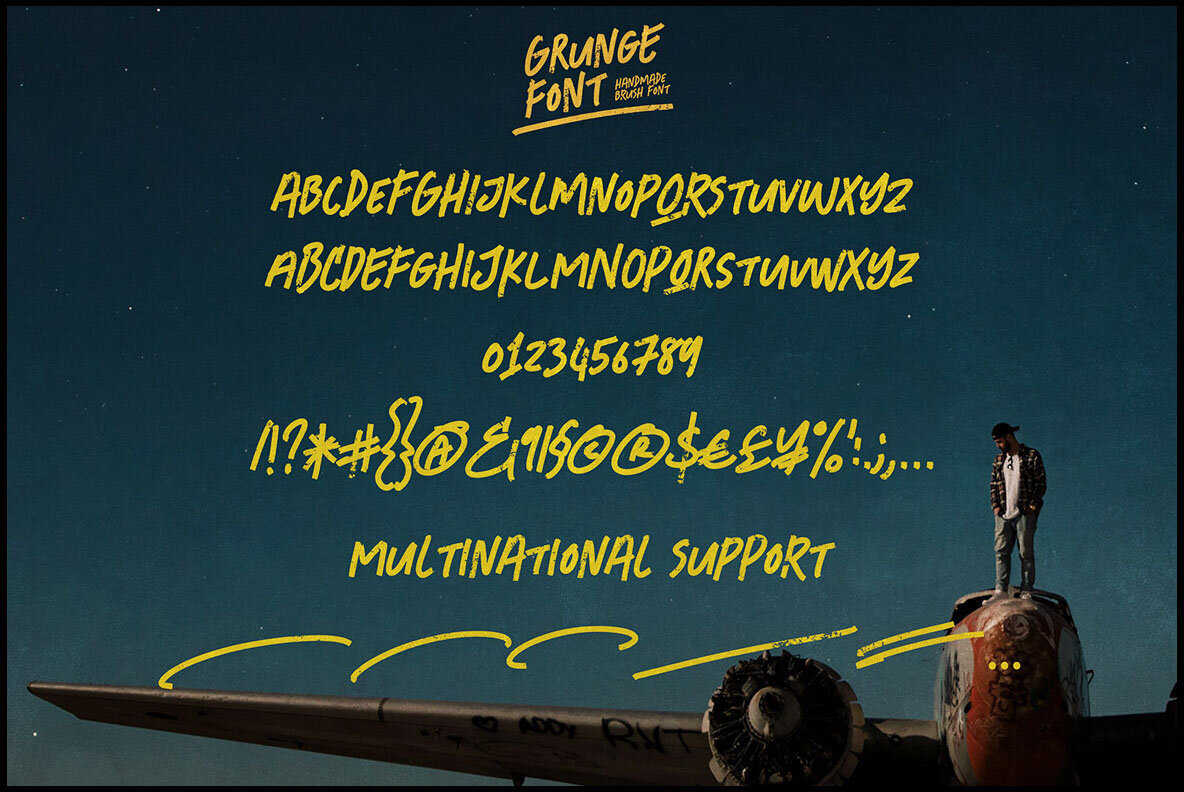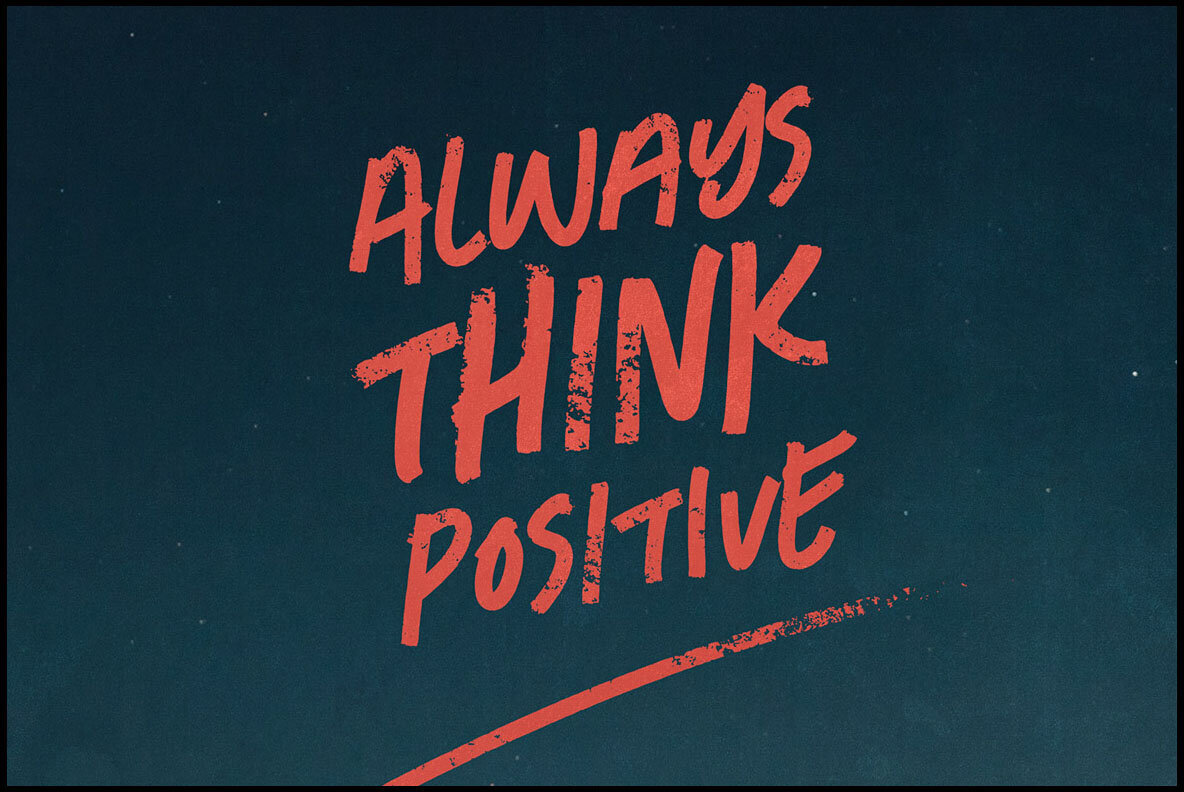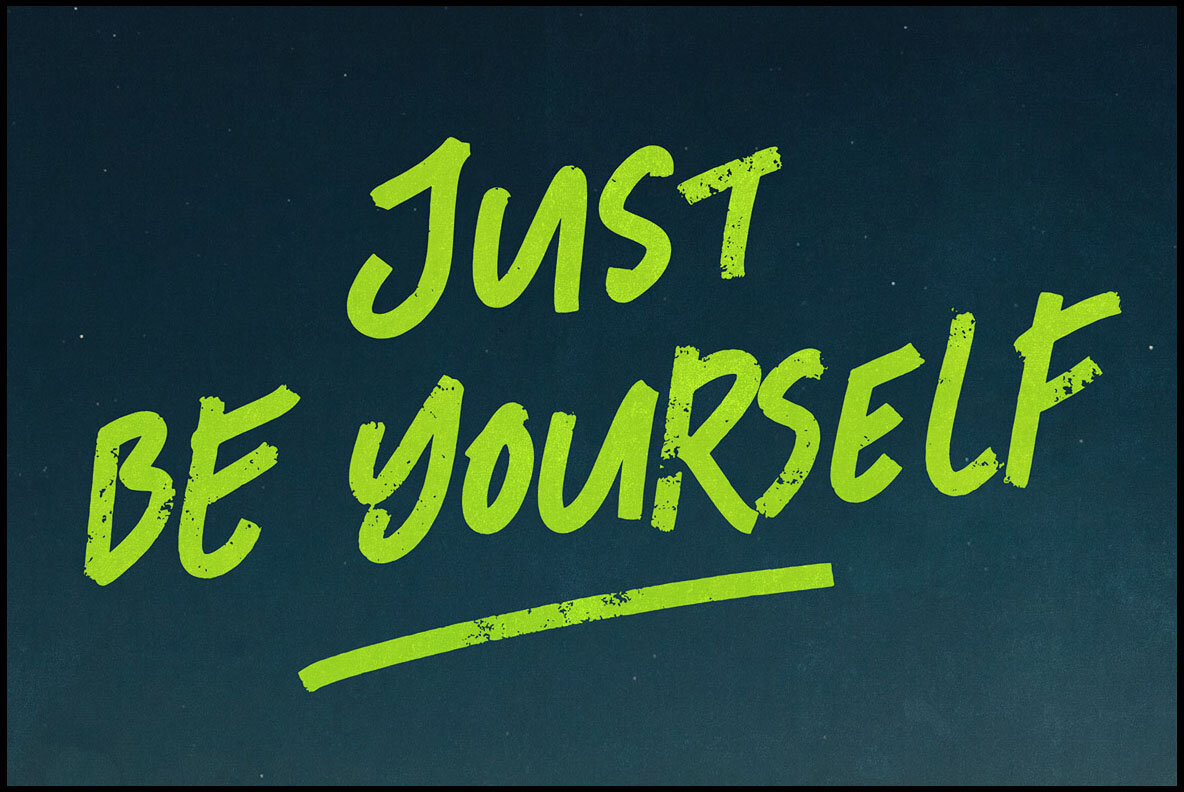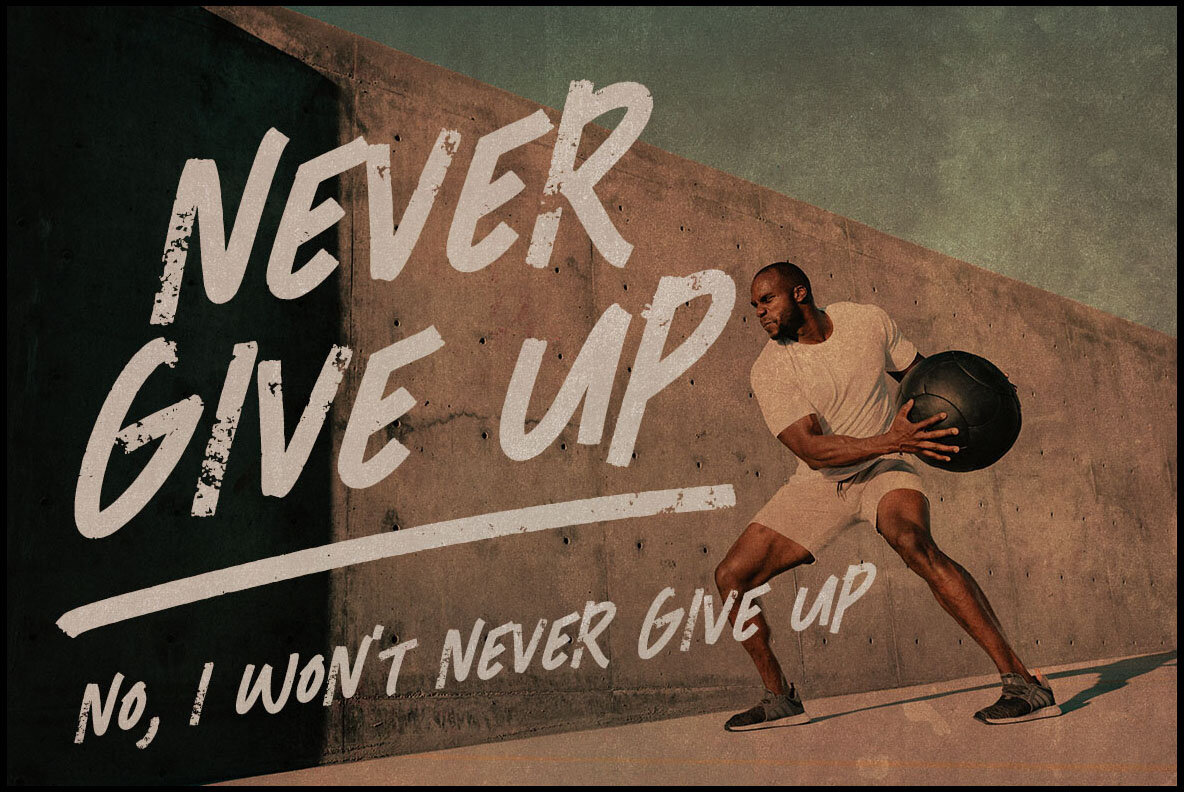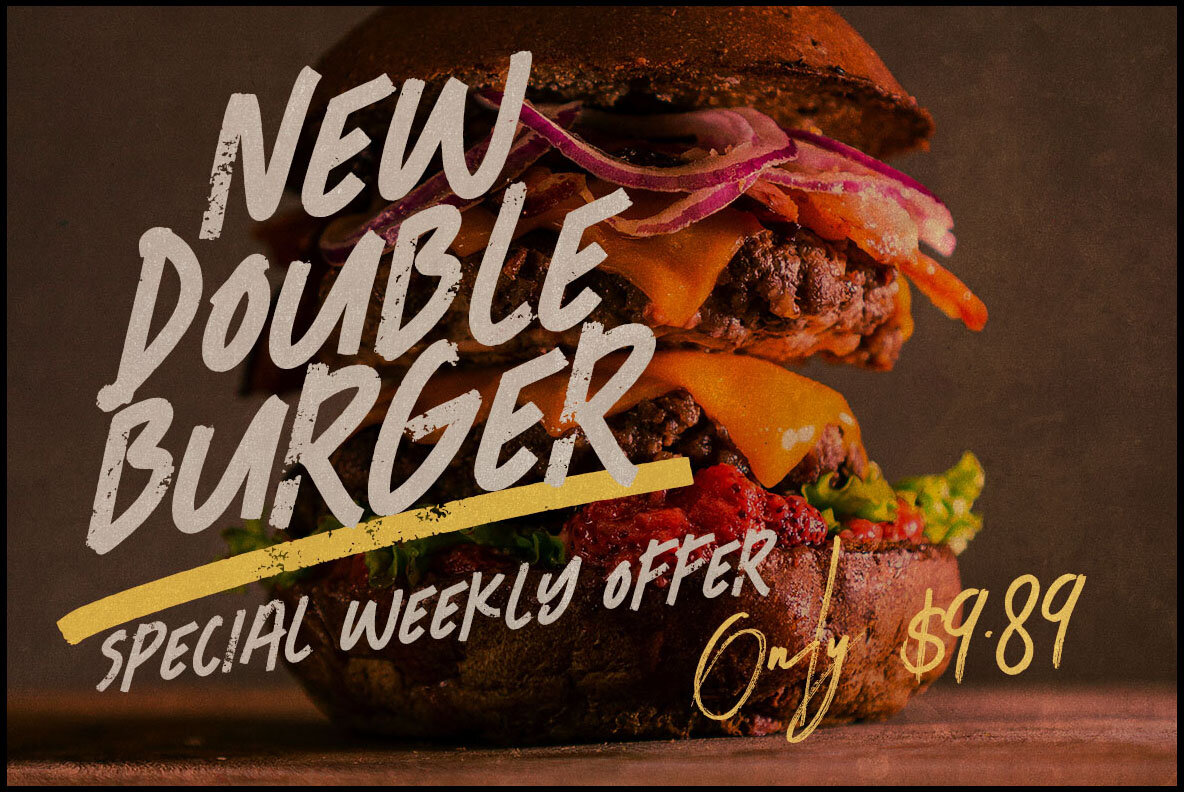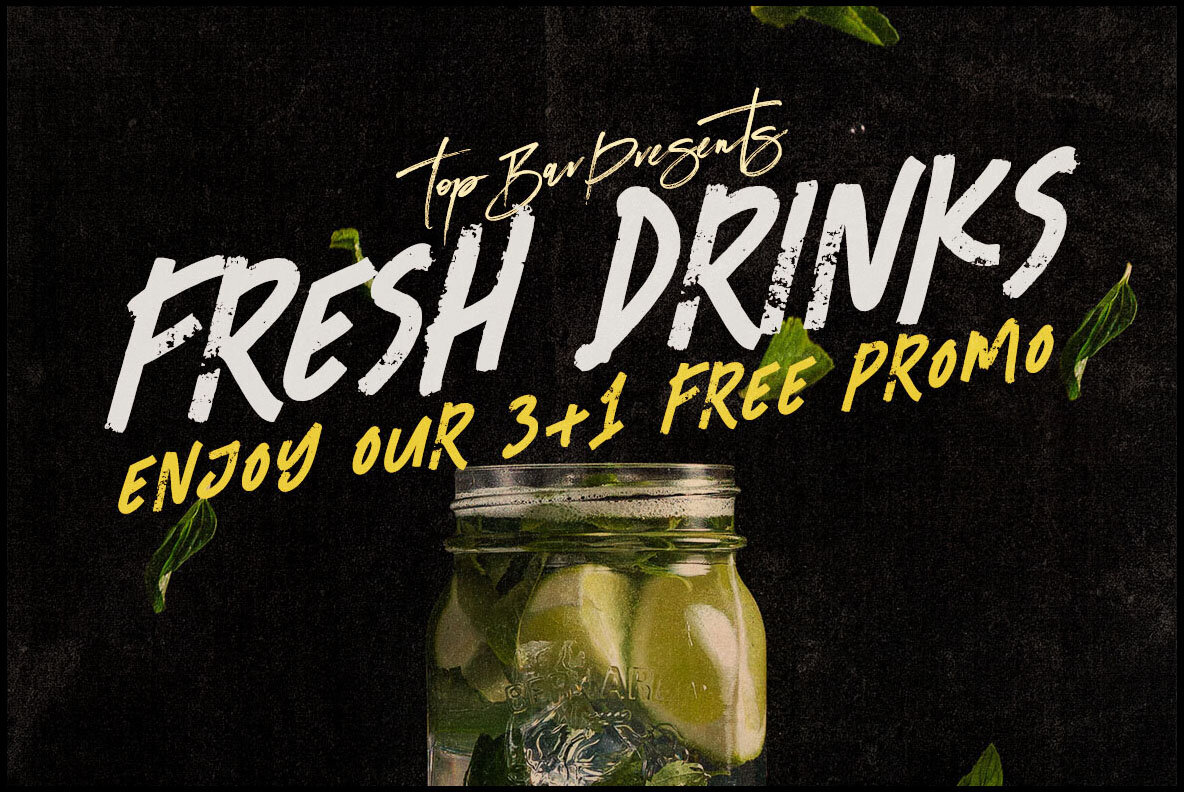
Grunge Font
The Grunge Font by Peter Olexa offers a distinctive marker and grunge style that adds a unique flair to any project. This sans display font is designed to enhance artistic and hipster branding initiatives with its bold and edgy aesthetic.Grunge Font: Bold and Artistic Sans Display